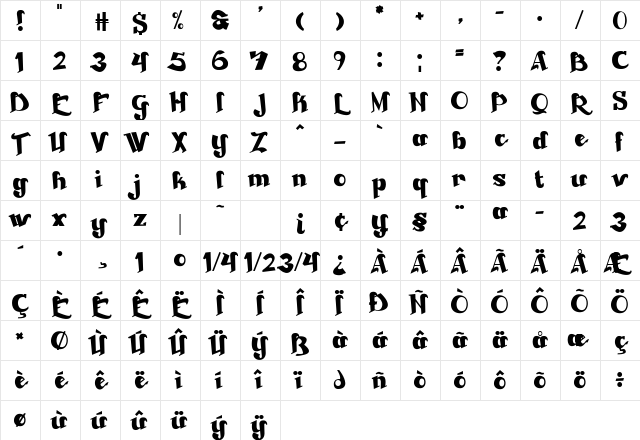
Beckasin Regular Free Font
Beckasin Regular
Foundry: M￿ Greb￿
Designer: M￿ Greb￿
Design Context for Beckasin
Beckasin is a composed and adaptable typeface that performs quietly and consistently across a wide range of design contexts.